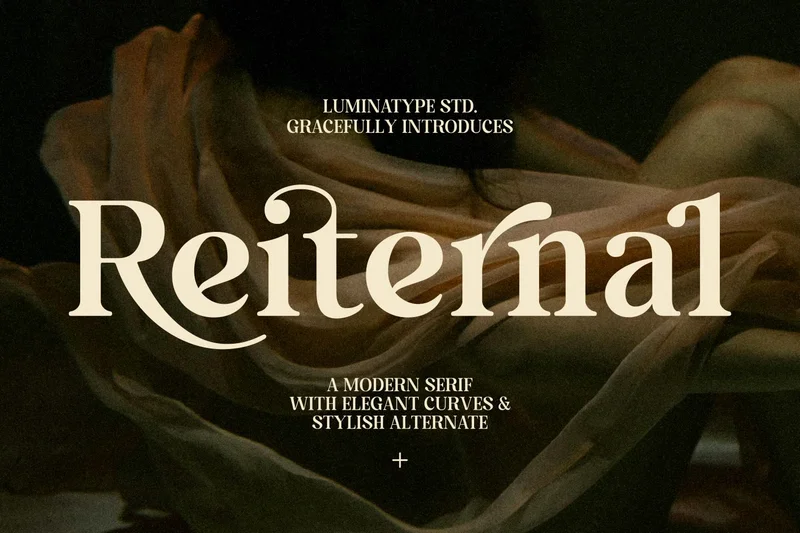
LT Reiternal
Introducing the cinematic elegance and luxury of Reiternal Font, sensationally created by Luminatype Studio. This articulate Sans serif font is the essence of finesse, impeccably designed to elevate your high-end projects. Let Reiternal infuse your designs with an unparalleled touch of sophistication and refinement.